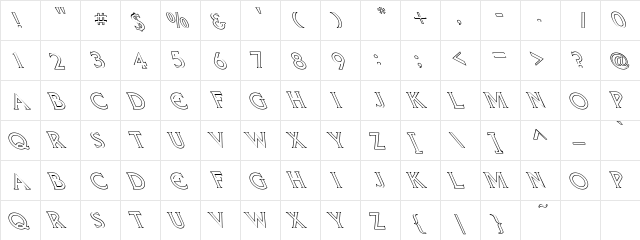
Liberty HollowLeftie Regular
Design Context for Liberty HollowLeftie Typeface
Liberty HollowLeftie offers clean, dependable letterforms without strong stylistic allegiance, making it a practical choice for designers who need flexibility.